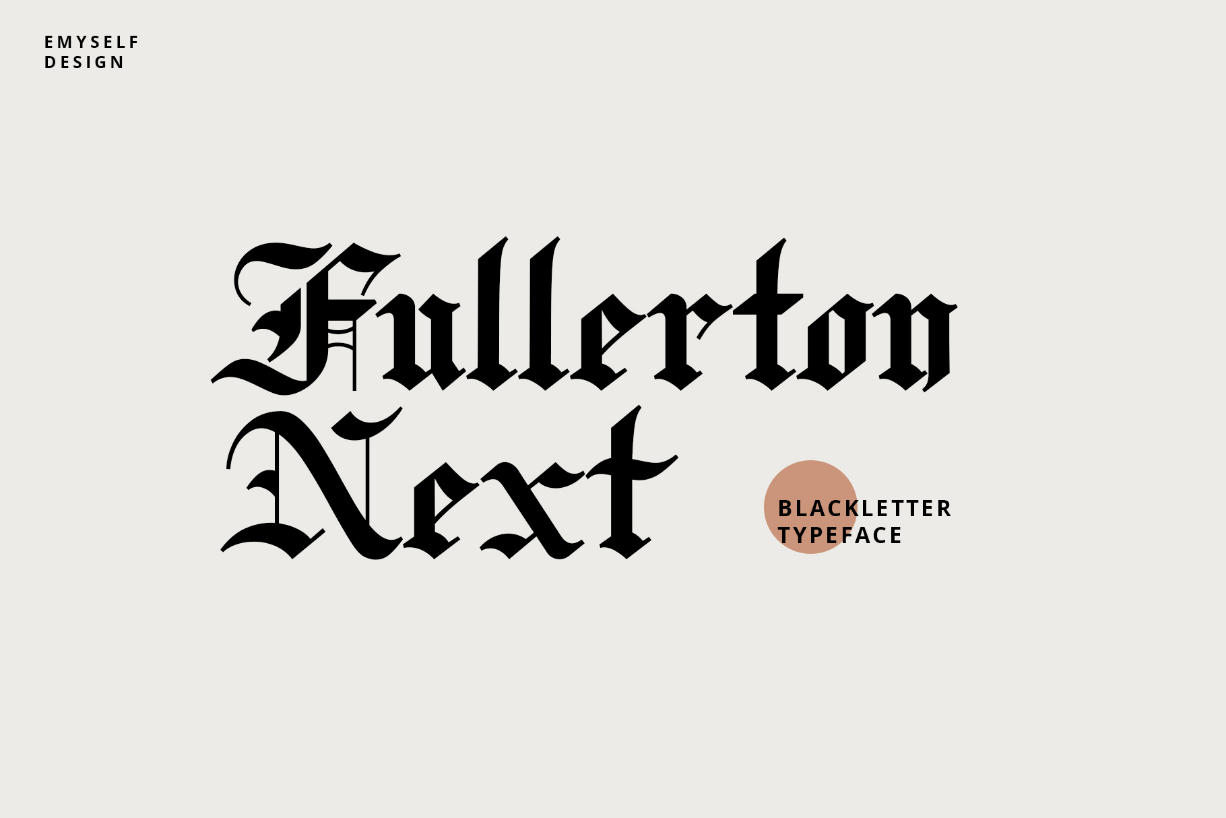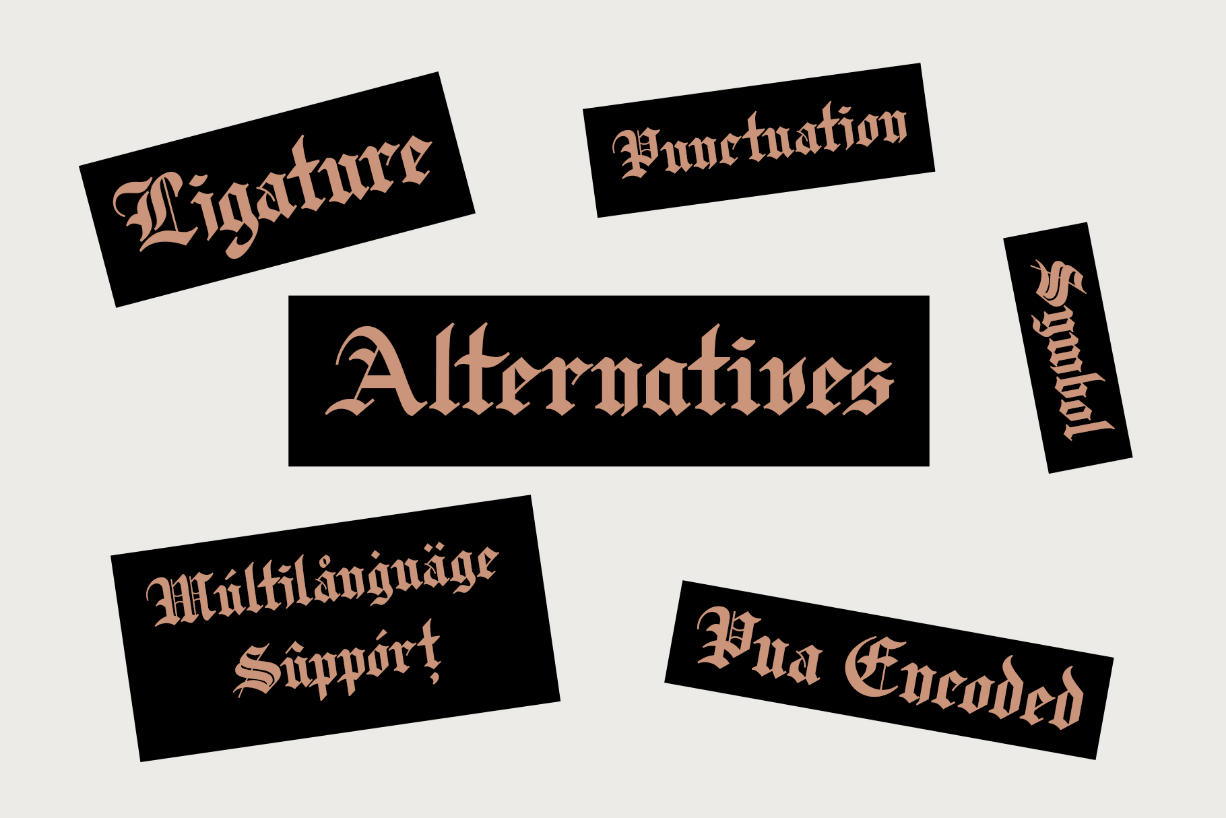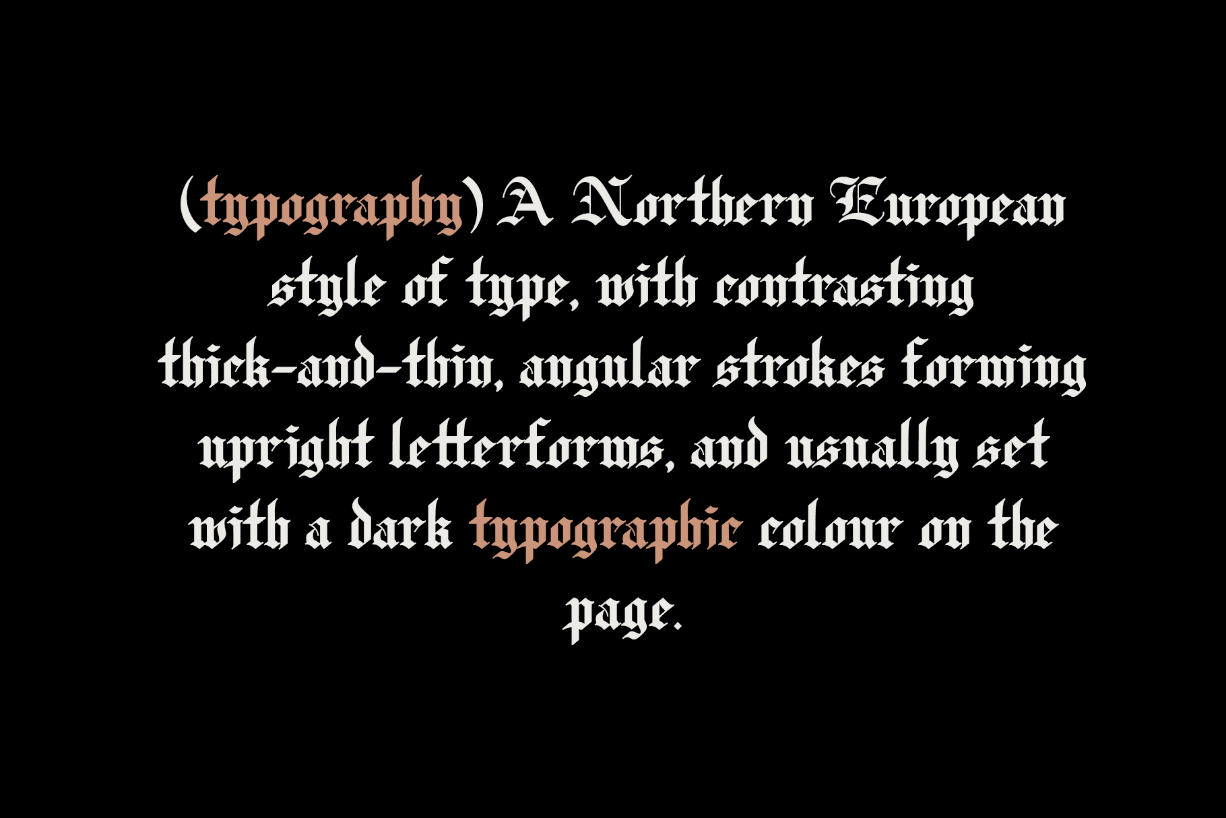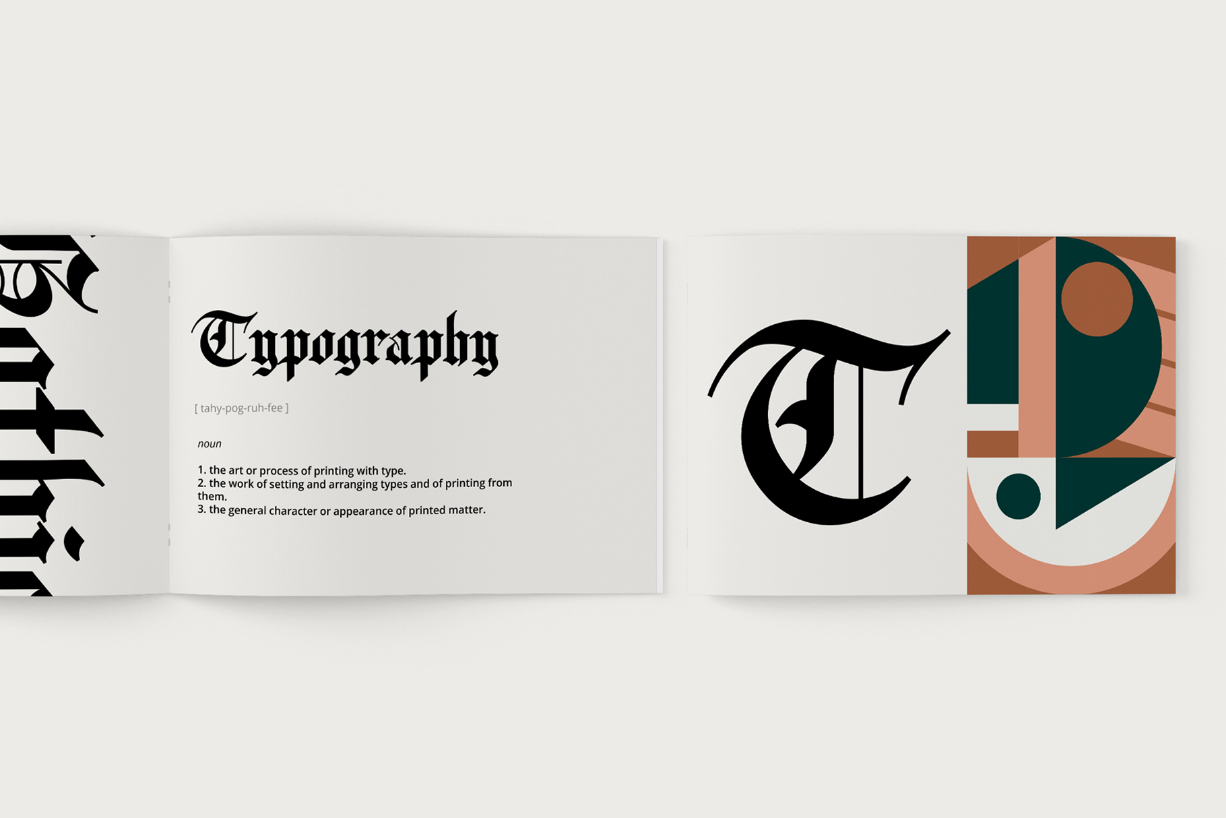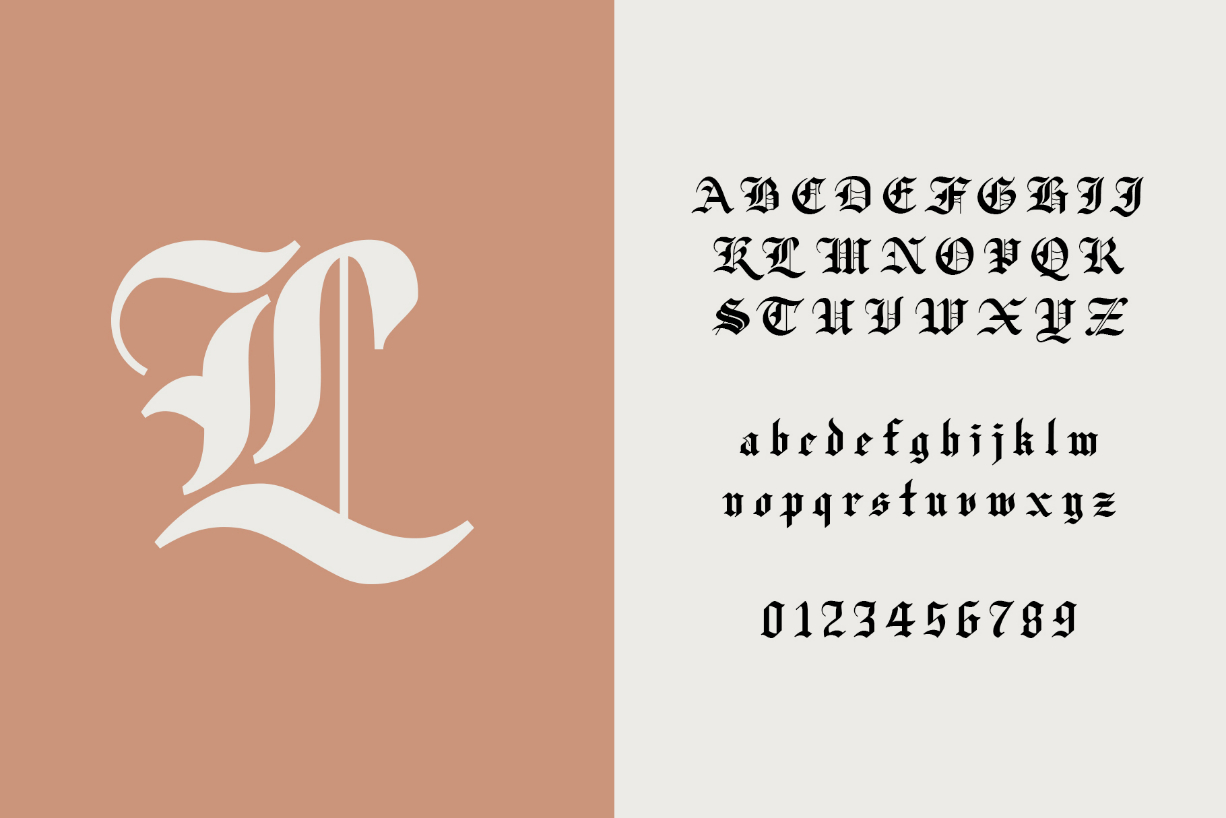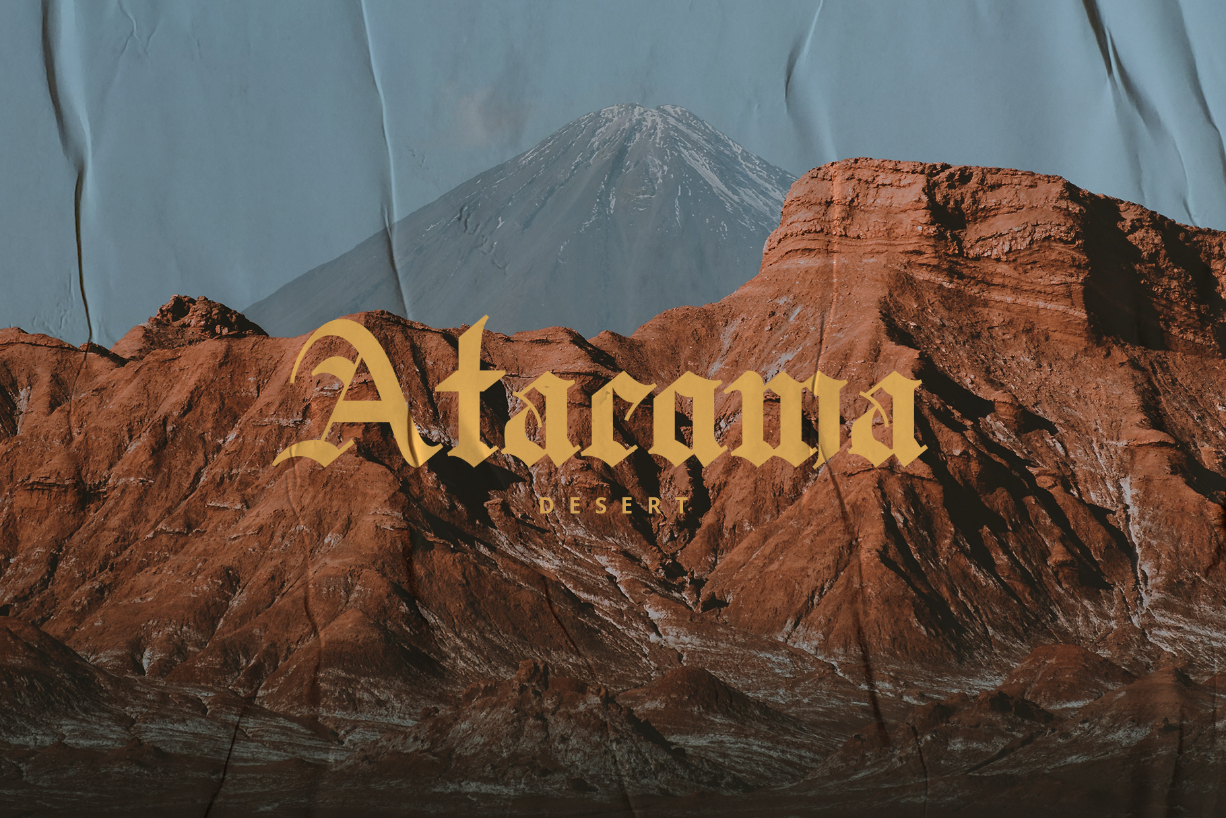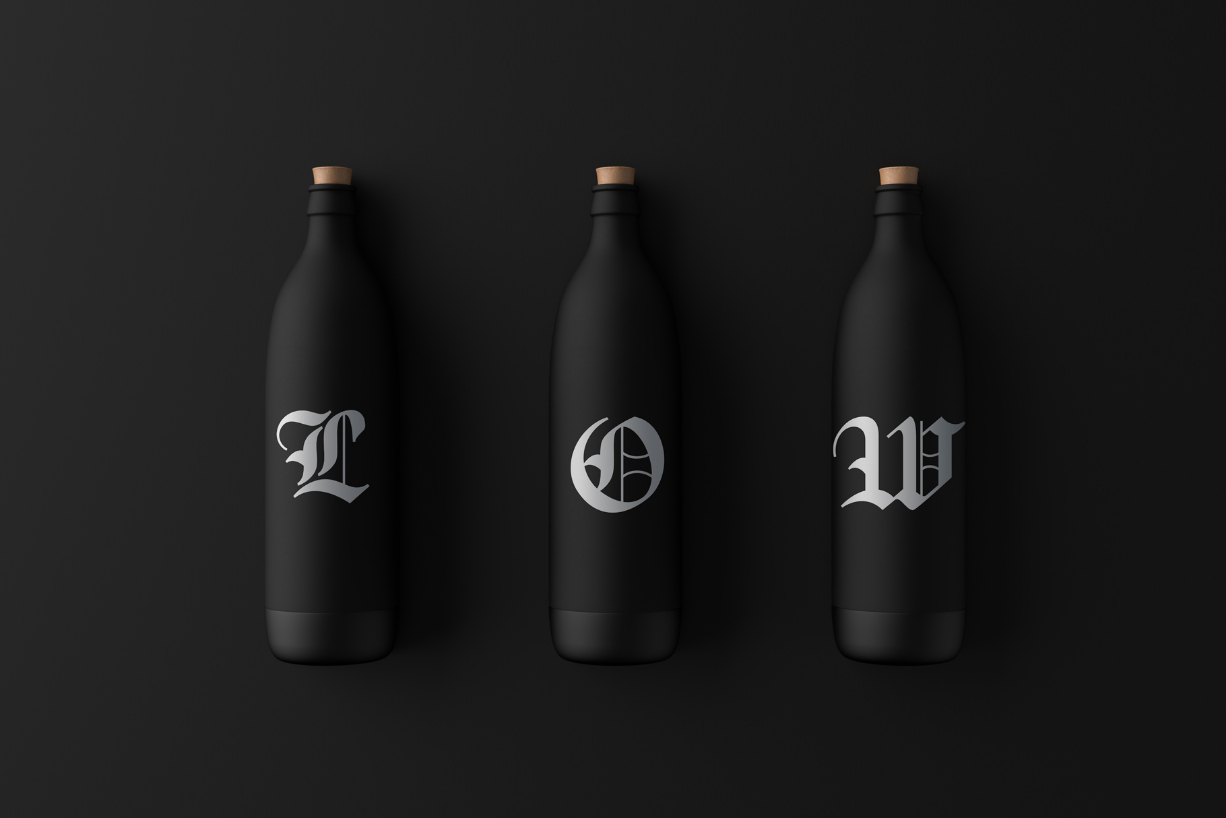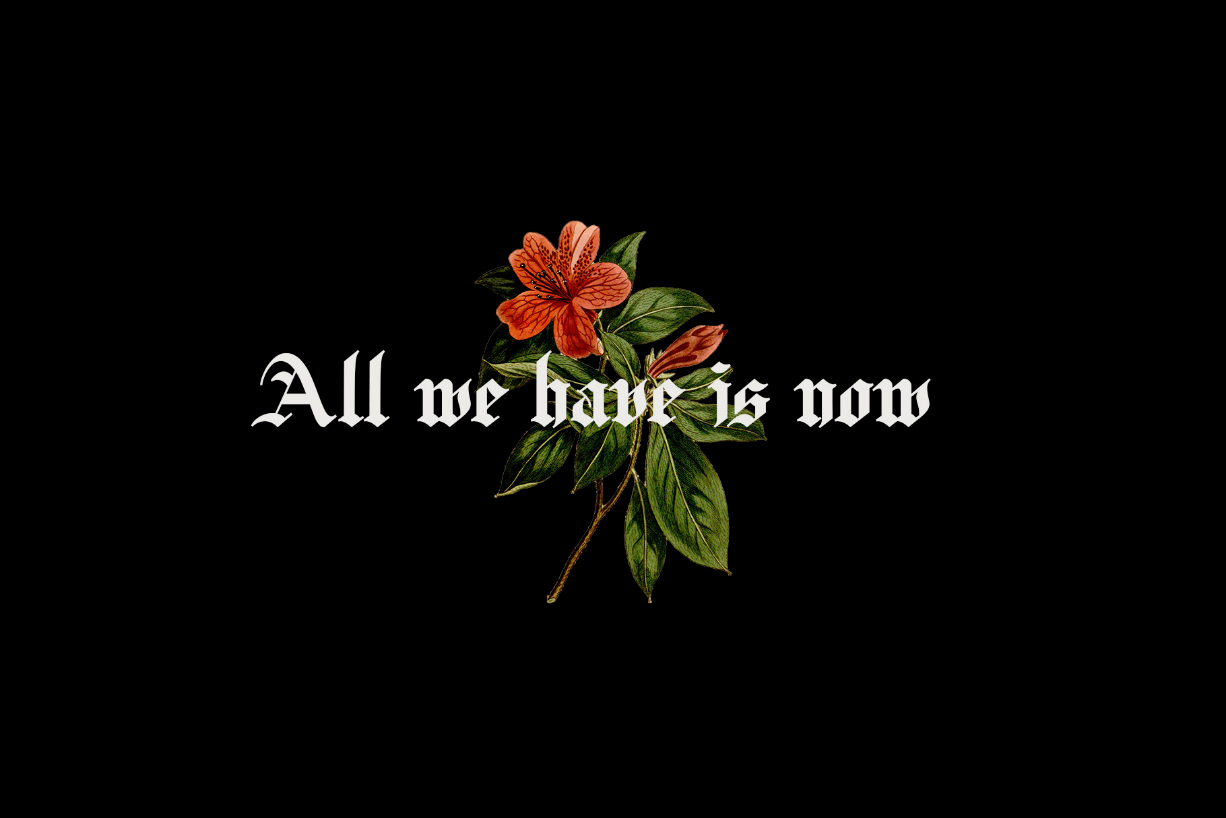
Fullerton Next Font
About Fullerton Next Font
Fullerton Next is a great blackletter. This stunning font is a stylish homage to classic calligraphy and features a vintage look. Use it for any crafting project that requires a personalized look!